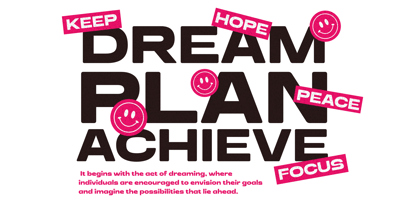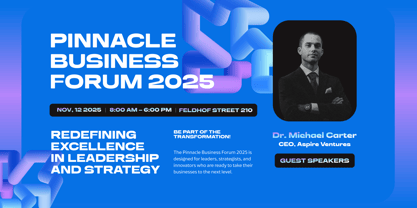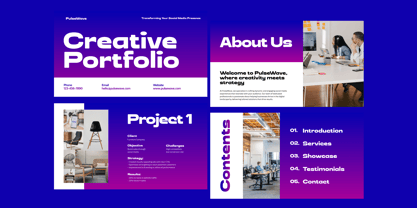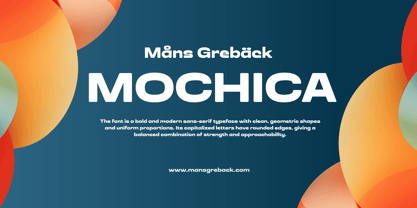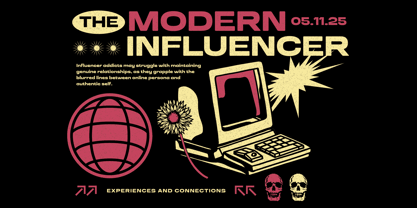
Mochica
by Mans Greback
The Mochica Font Family was designed by Måns Grebäck and published by Mans Greback. Mochica contains 4 styles and family package options.
Mochica is a bold sans-serif typeface with a modern and futuristic vibe.
Mochica is built with a substantial weight and rounded terminals, giving it a soft yet sturdy presence. Its strong geometric shapes evoke the space-age, making it perfect for headlines and logos that need to convey a sense of innovation and coolness. Imagine this font on the cover of a sci-fi graphic novel, or the logo of a tech startup. Mochica is confident and contemporary.
The font is built with advanced OpenType functionality and guaranteed top-notch quality, containing stylistic and contextual alternates, ligatures and more automatic and manual features; all to give you full control and customizability.
It has extensive lingual support, covering all Latin-based languages, from North Europa to South Africa, from America to South-East Asia. It contains all characters and symbols you'll ever need, including all punctuation and numbers.
Mans Greback designed this font with a vision to create a typeface that is both functional and aesthetically compelling, ensuring it stands out.